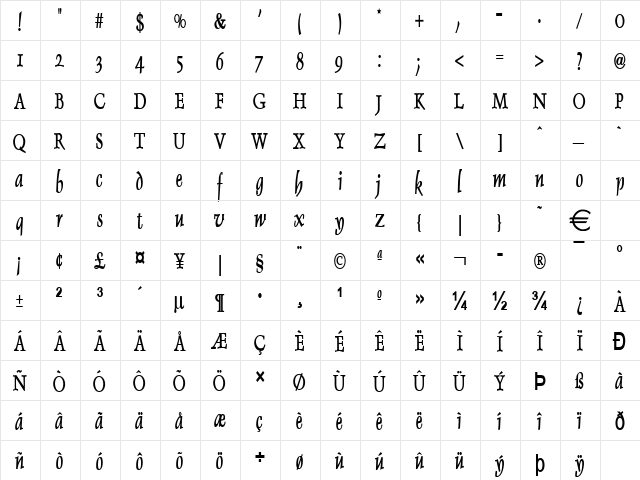
DolphinThin Bold Font Preview
DolphinThin Bold
DolphinThin Bold Font Details
Design Context for DolphinThin Typeface
DolphinThin offers clean, dependable letterforms without strong stylistic allegiance, making it a practical choice for designers who need flexibility. Its bold stroke weight gives it real presence on the page.